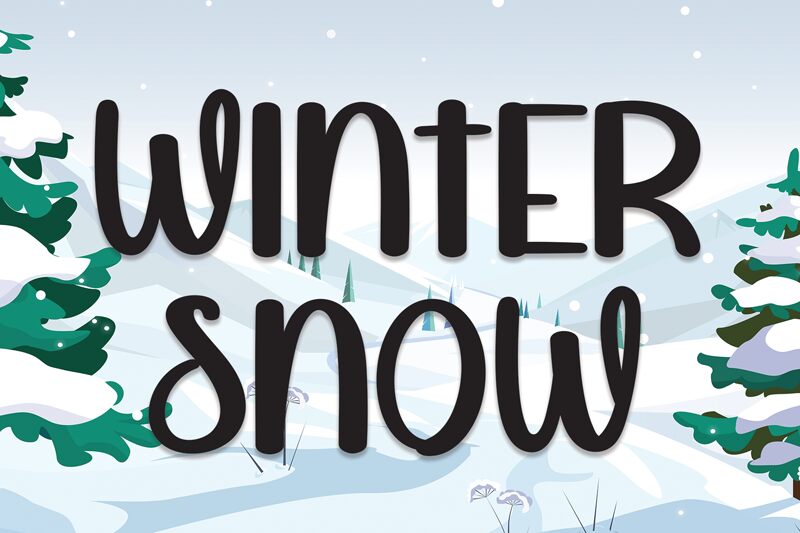
Winter Snow
Winter Snow is a captivating font that exudes a sense of ethereal grace. Designed by Andi Moz, this smooth brush script masterfully captures the delicate beauty of snowfall, with its flowing strokes and graceful curves. The font's elegant yet approachable aesthetic makes it an ideal choice for a wide range of design applications, from winter-themed branding and marketing materials to elegant wedding invitations and event signage. Its versatility allows it to seamlessly blend into various visual styles, effortlessly elevating the overall aesthetic.
The font's distinctive character lies in its ability to convey a sense of tranquility and sophistication. Its smooth, brushed strokes evoke the gentle drifting of snowflakes, creating a visual experience that is both visually striking and emotionally resonant. Winter Snow is a font that captivates the eye and captures the imagination, making it a valuable asset for designers seeking to imbue their projects with a touch of enchantment and timeless elegance.